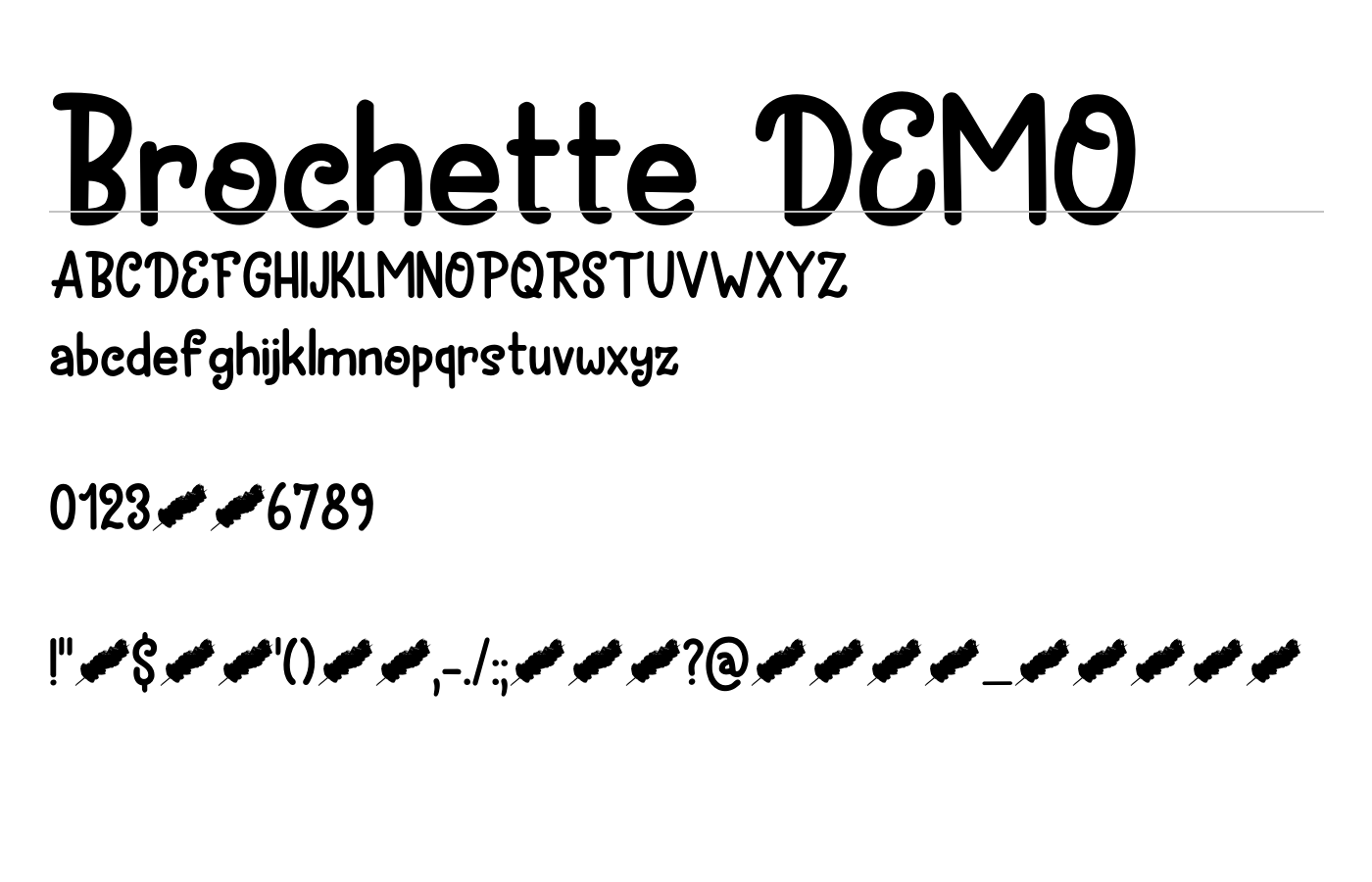
Brochette DEMO is a playful sans serif font with a quirky, hand-drawn feel that brings a friendly and approachable personality to any design. Its irregular, rounded letterforms and lively shapes make it perfect for informal, creative projects, children's books, or casual branding that aims to feel fun and lighthearted. This font works well in headlines, logos, and packaging where a unique, whimsical touch is desired.
Brochette DEMO Font
About Brochette DEMO Font